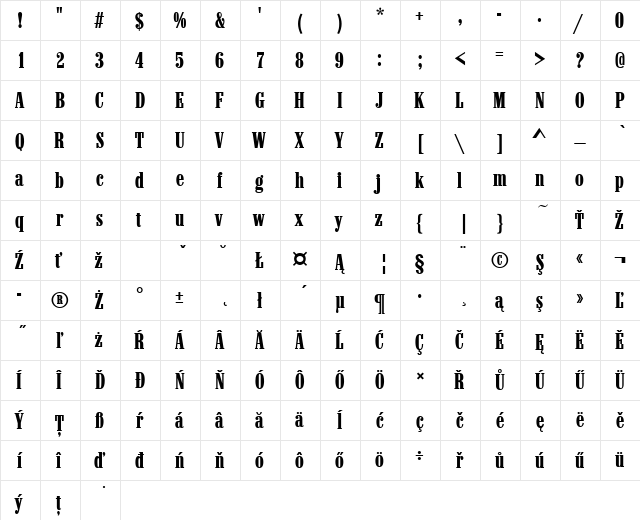
MarlboroDEE Regular
Design Context for MarlboroDEE Typeface
MarlboroDEE offers clean, dependable letterforms without strong stylistic allegiance, making it a practical choice for designers who need flexibility.